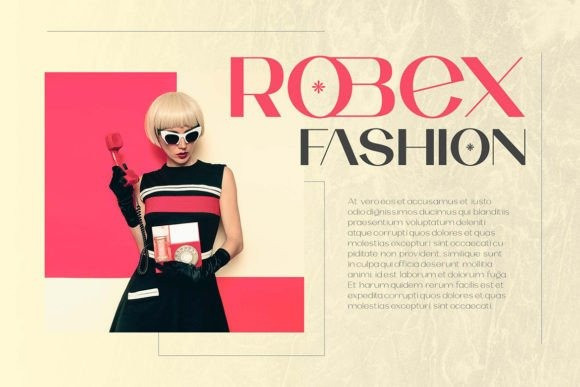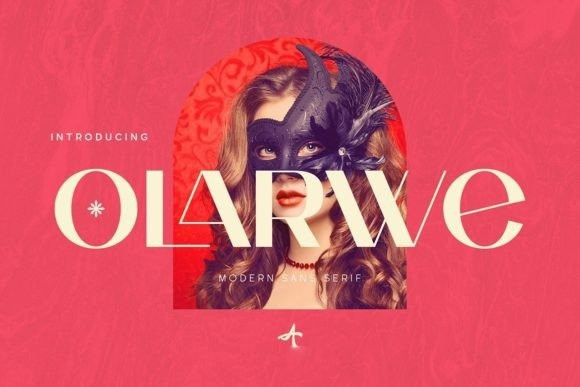
Olarwe Font
Olarwe Sans Serif Font, a modern and elegant look of a sans serif tagline. It pairs well with sans serif and modern script as pictured, or stands alone as a representative header for an elegant look. Olarwe is equipped with a professional modern character that can present a sleek and attractive identity for your company and for business purposes such as name cards, name tags, and uniforms. This modern Olarwe typeface is perfect for embossing as signage lettering or even sprinkling it in your office with elegant-looking cutout stickers. This elegant Olarwe shape also looks great on book covers or magazine articles. It also comes with Ligatures and alternative styles to make your designs more eye-catching.